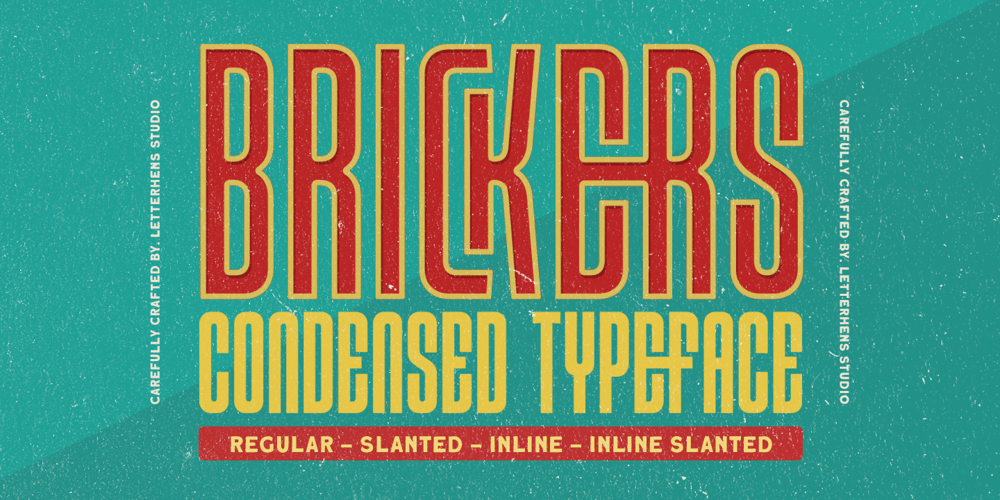
Brickers Font Family was designed by Hendry Juanda and published by Letterhend. Brickers contains 4 styles and family package options. Introducing, Brickers- Condensed display font with its clean and crisp appearance, it comes with 4 styles : regular, slant, inline and inline slant.This font adds a unique touch to any design project. From logos to posters, the Brickers is the perfect choice for applications that require a fresh and contemporary look.Features : Uppercase & lowercase Numbers and punctuation Alternates & Ligatures Multilingual PUA encoded